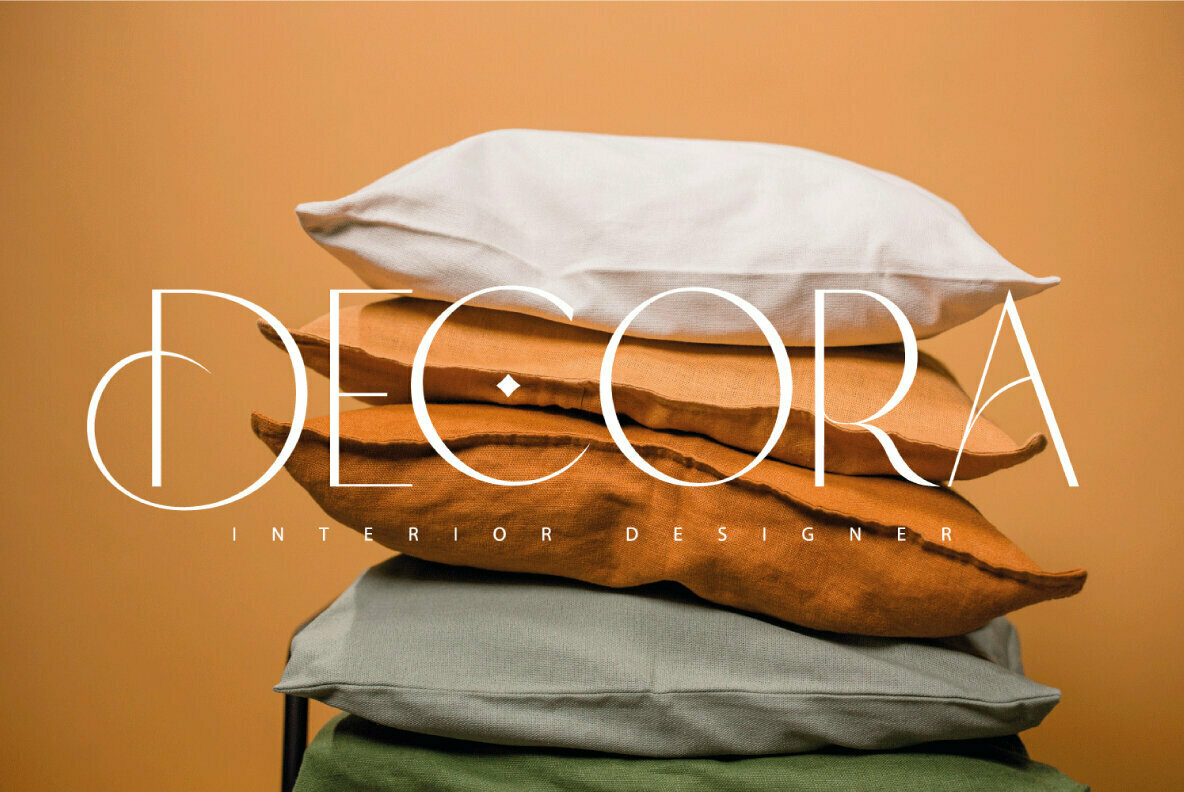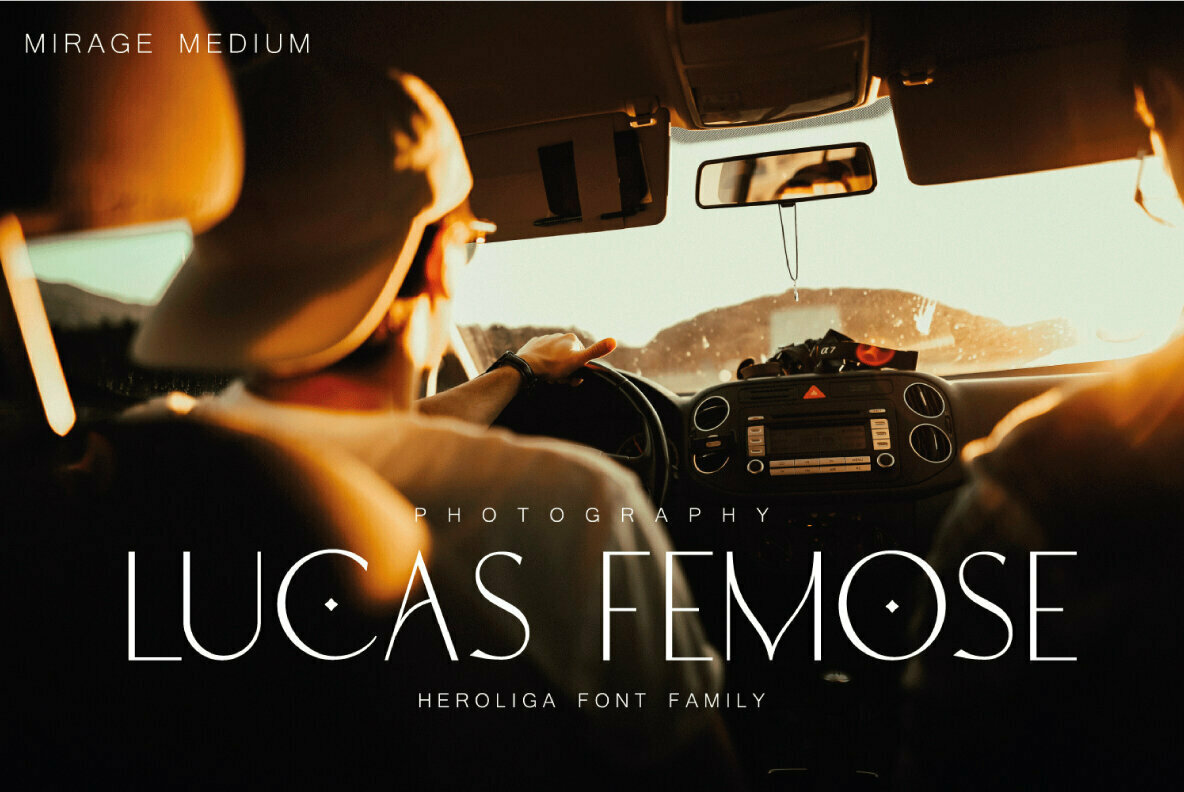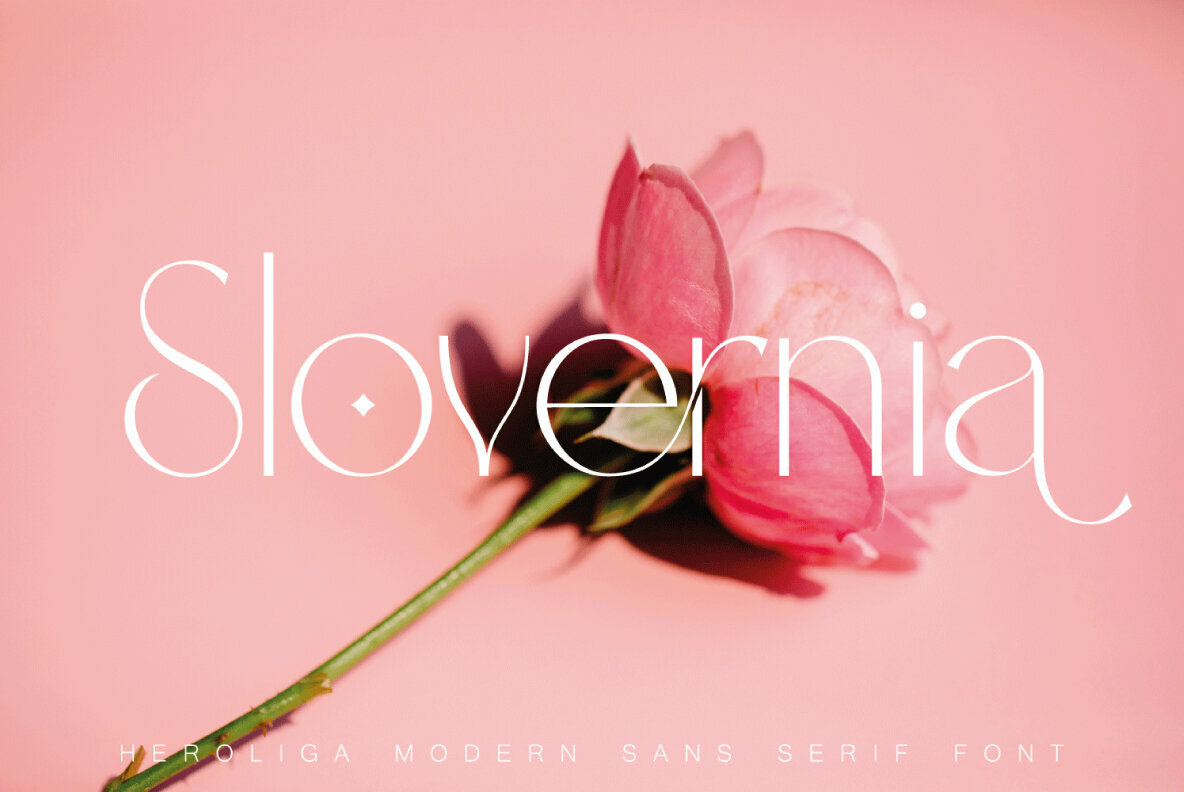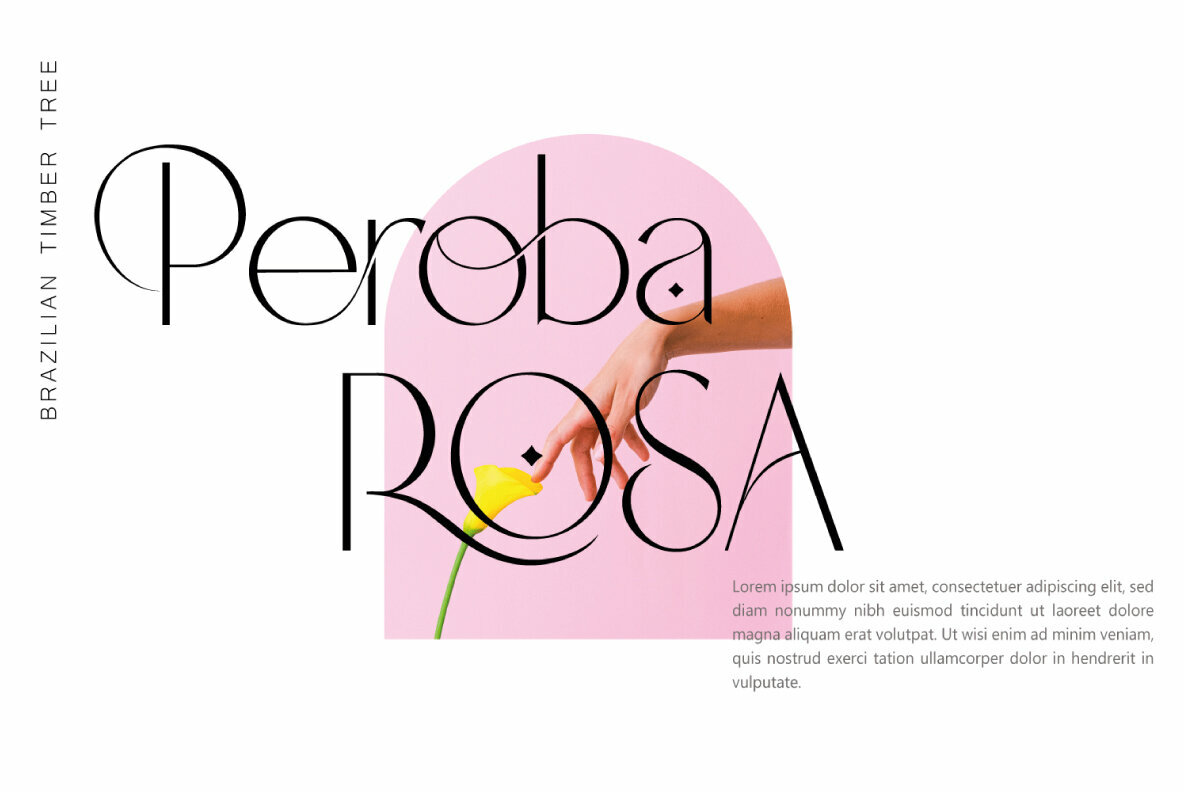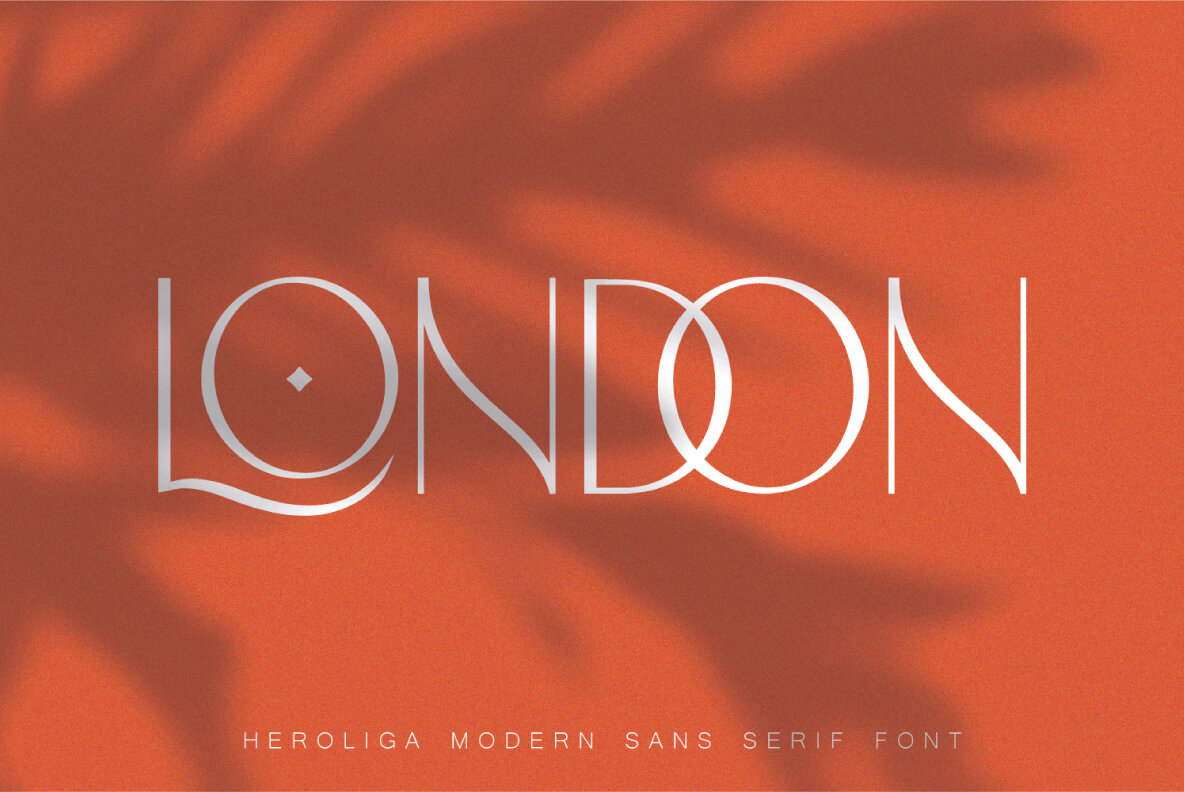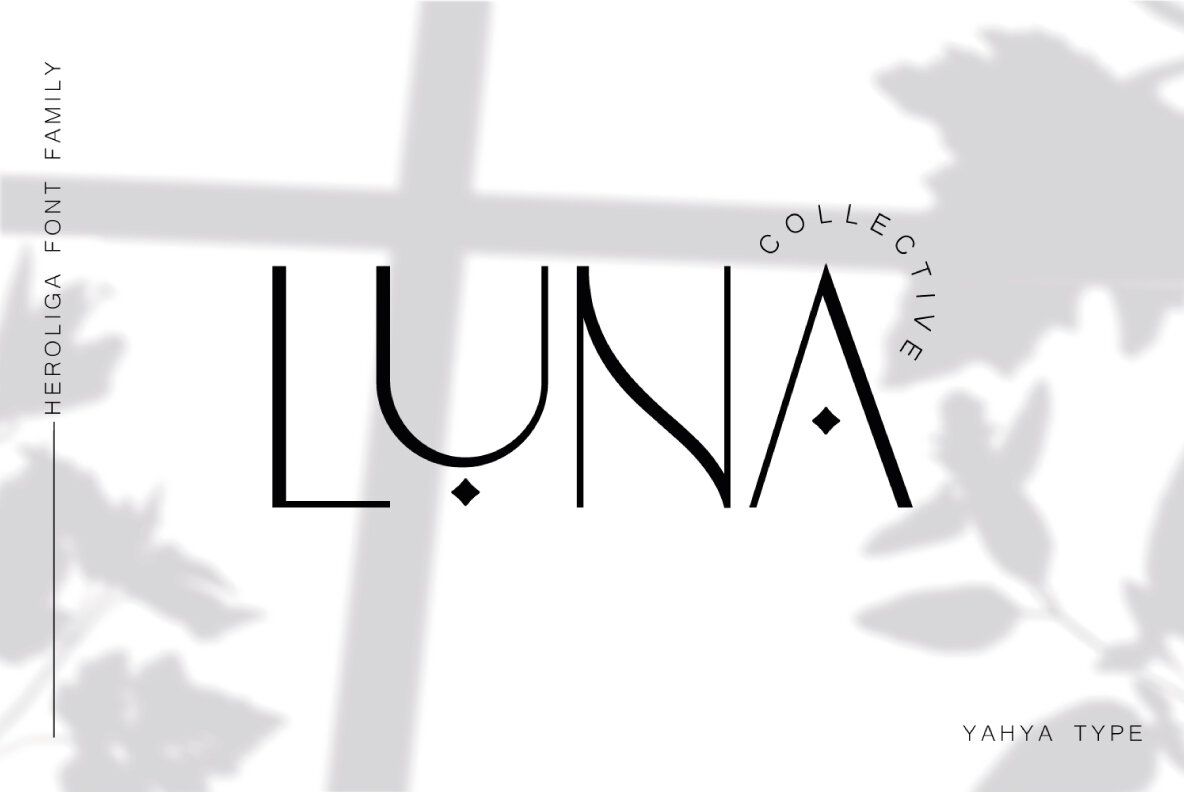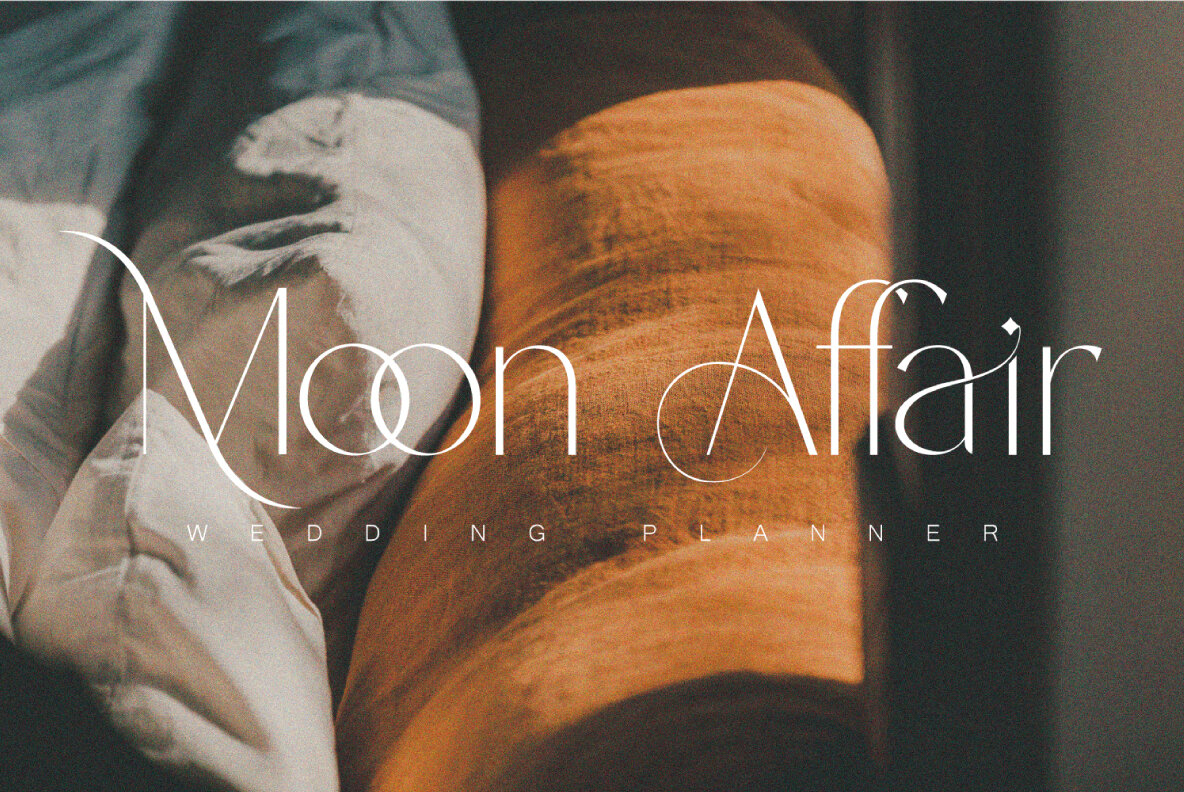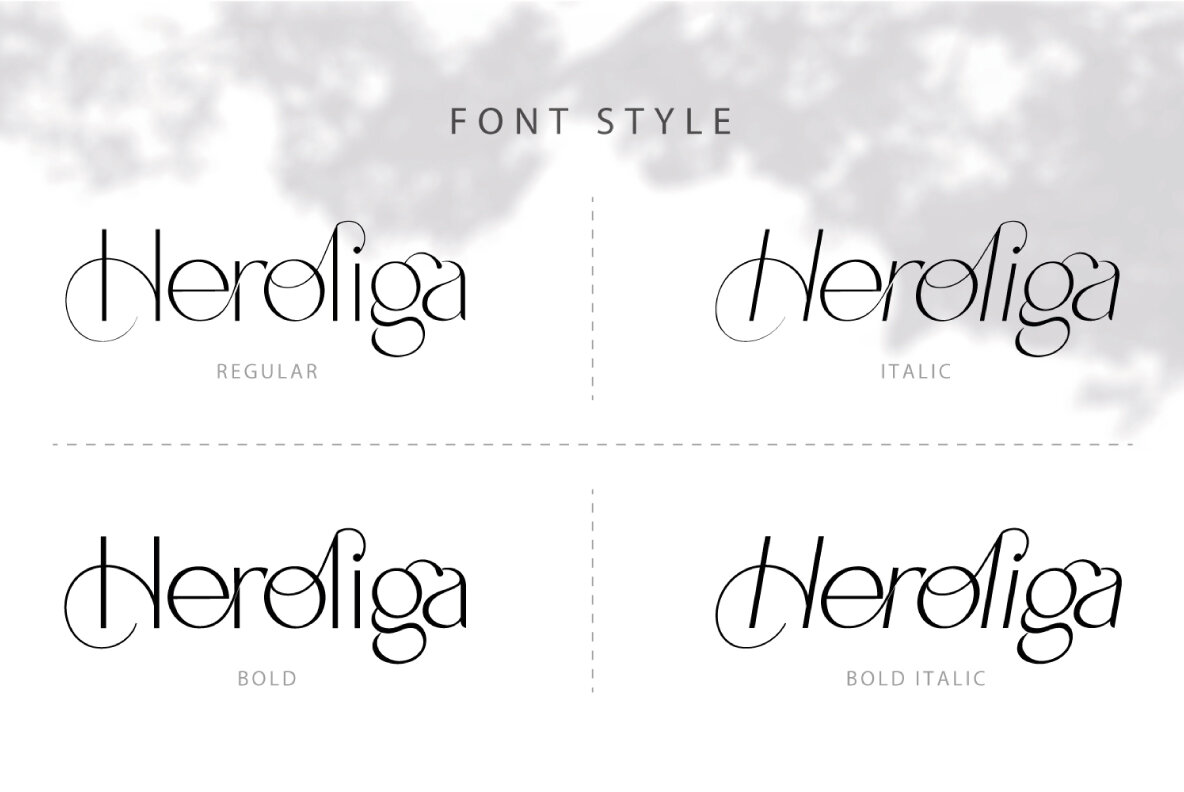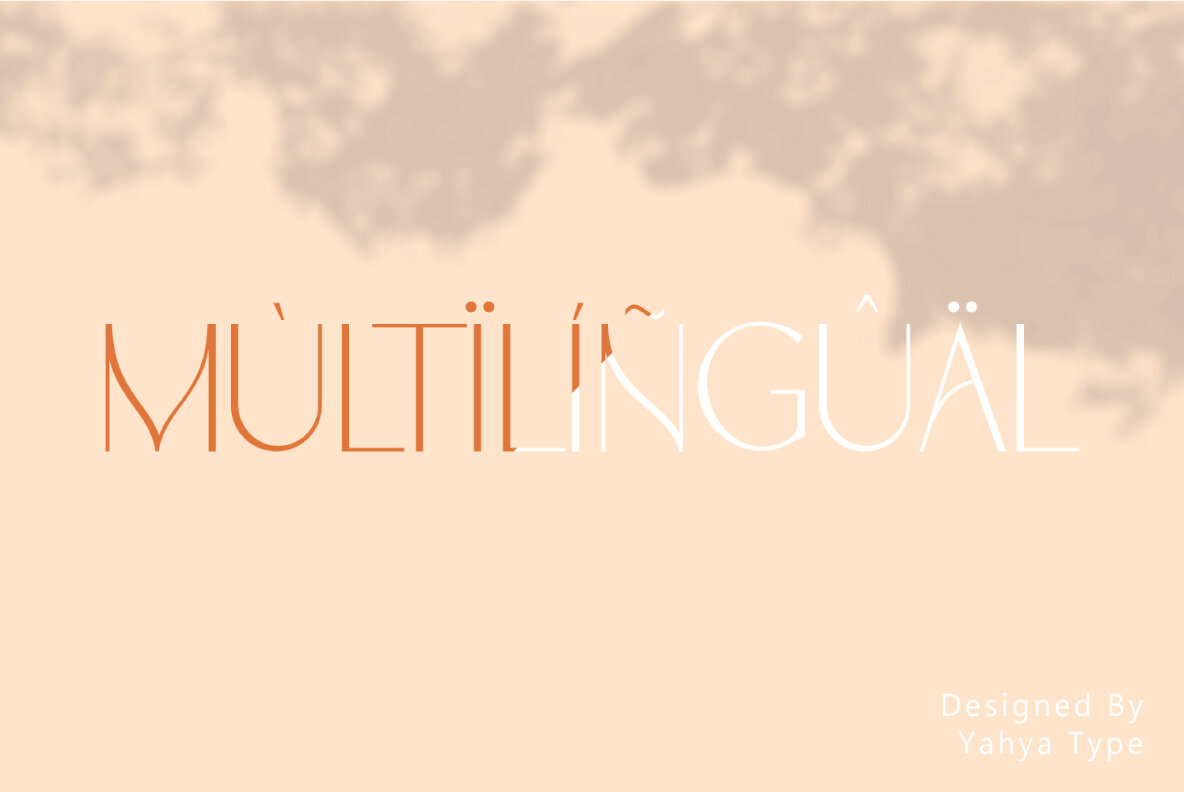
Heroliga Font
Heroliga is a refined sans serif font that melds elegance with modernity. Its special alternative letters provide a unique touch for each project, complemented by robust multilingual support. Heroliga is the quintessential choice for logo design, magazine headers, product packaging, and branding projects. It also lends a stylish flair for clothing lines or as an eye-catching text overlay for images and websites.Heroliga: Modern Sans Serif for Versatile Design